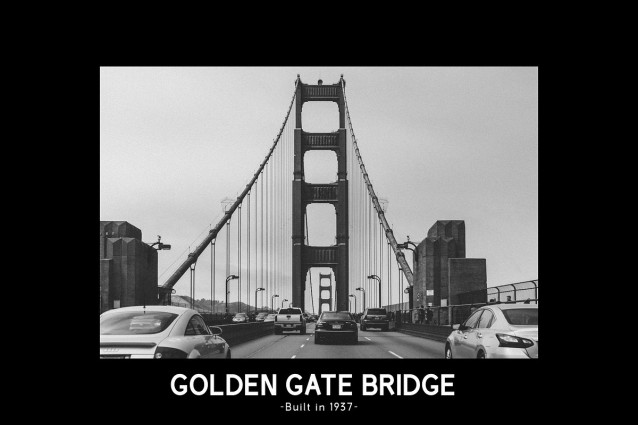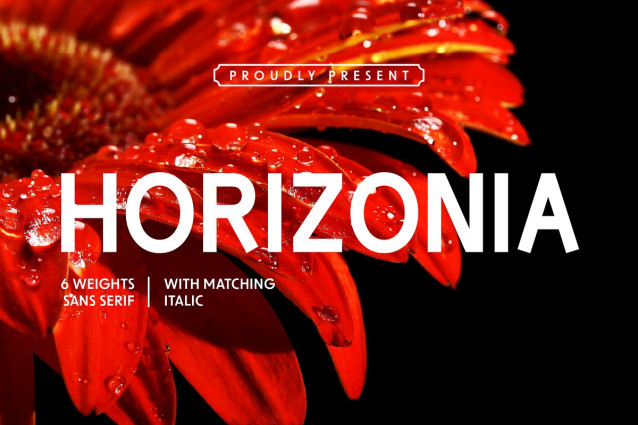
Horizonia Font
Horizonia Font is a very perfect choice for your logos, headlines, and body text alike. With clean line and strong characters, you can easily create a cohesive look for your brand or project. Plus, its simplicity makes it easy to read and comprehend, so you can be sure your message is getting across loud and clear.